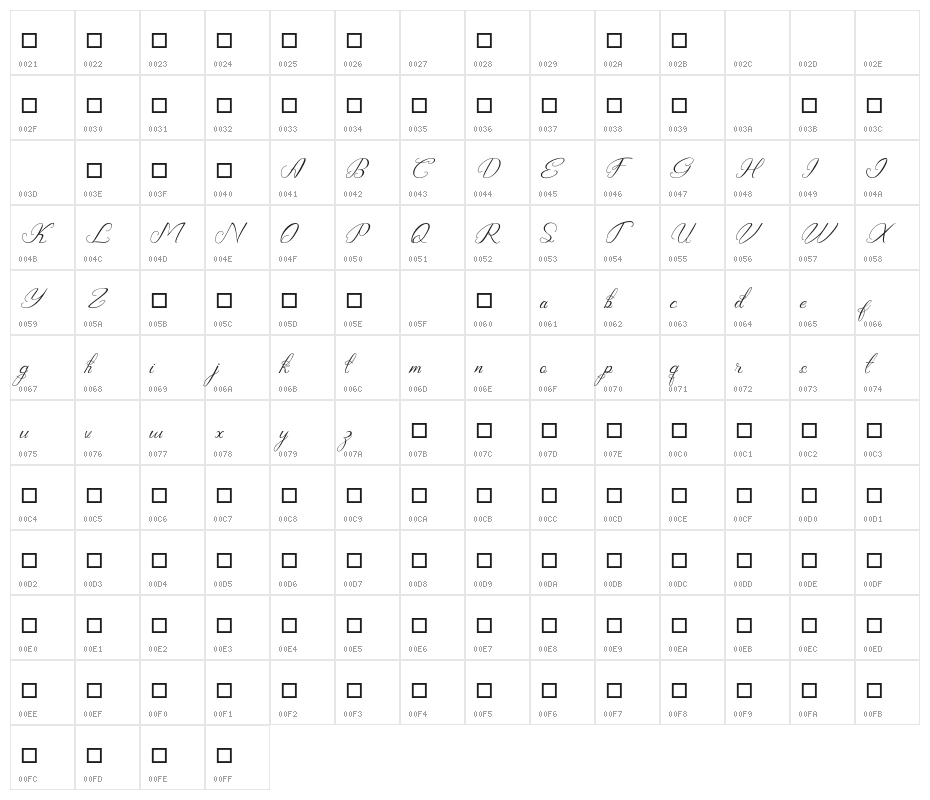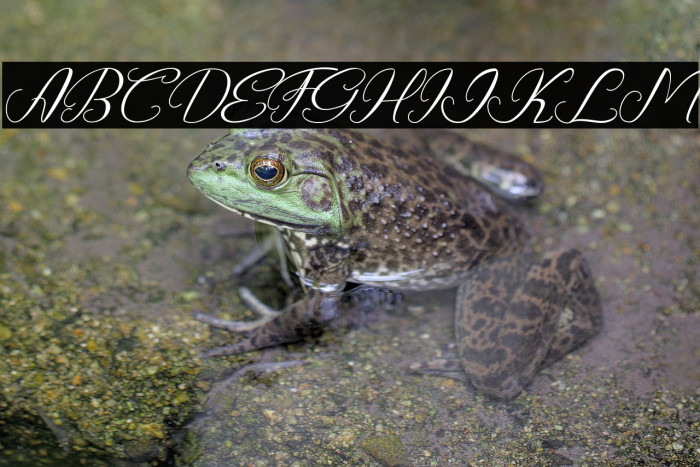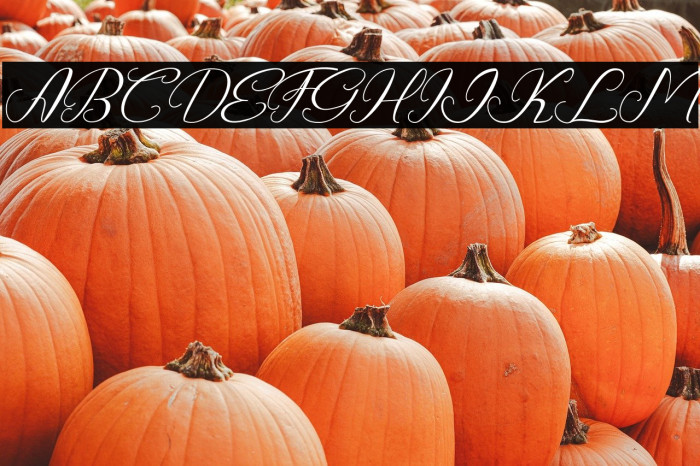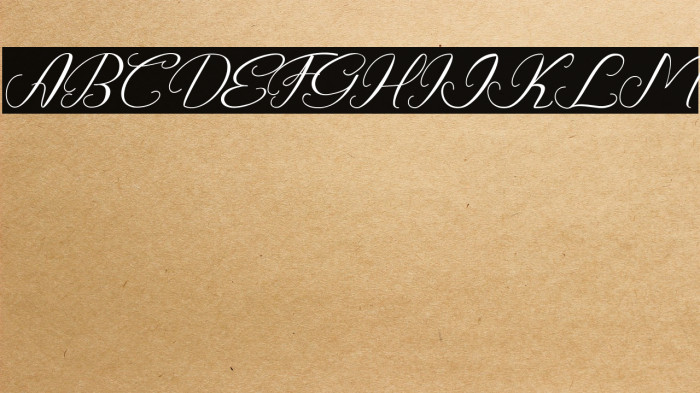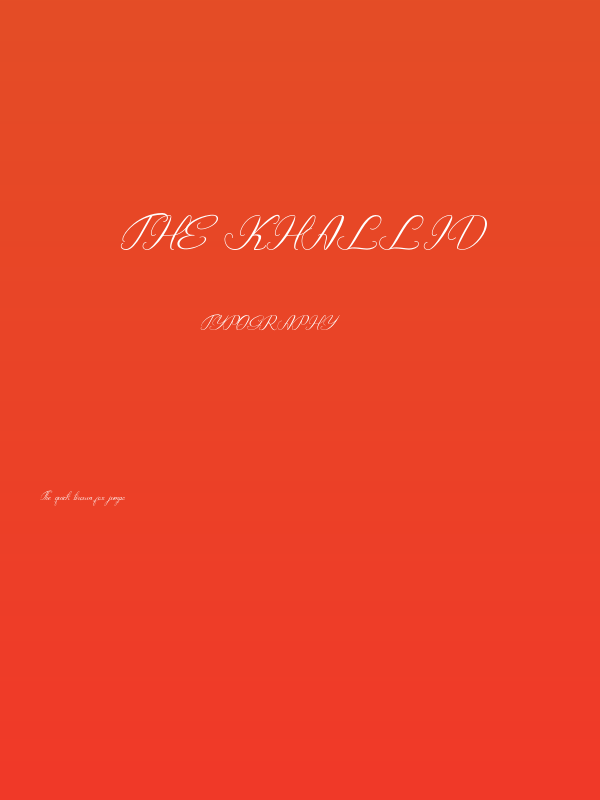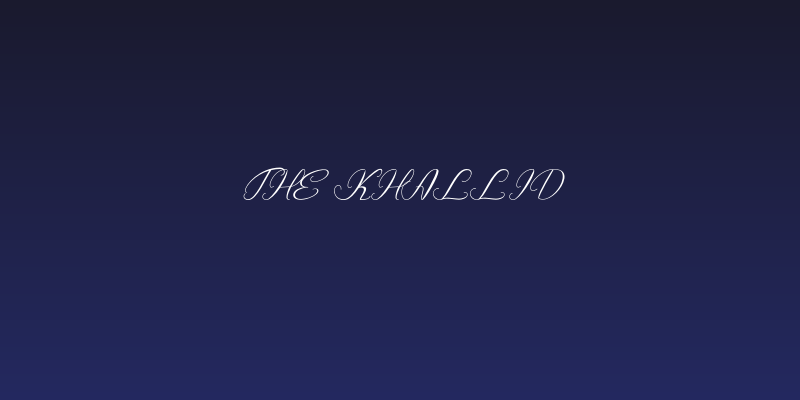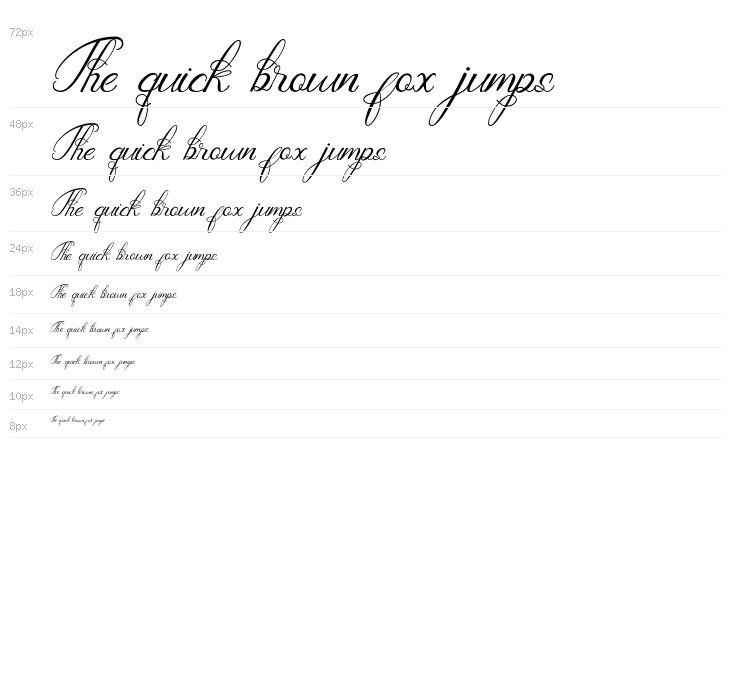
The_Khallid Font
The_Khallid Description
This elegant script font features flowing, cursive letterforms with intricate loops and swashes. The uppercase letters are particularly ornate, with graceful curves and flourishes that give the font a sophisticated and luxurious feel. The lowercase letters maintain a consistent style, complementing the uppercase with their own delicate loops and connections. This font is ideal for creating a sense of elegance and refinement, making it perfect for formal invitations, branding, and decorative purposes. The overall design is both classic and timeless, with a touch of modern flair.
Overall StyleClassic
Use CaseHeadlines, Logos, Invitations
Proposed ProjectsIdeal for wedding invitations, luxury branding, greeting cards, and decorative headings.